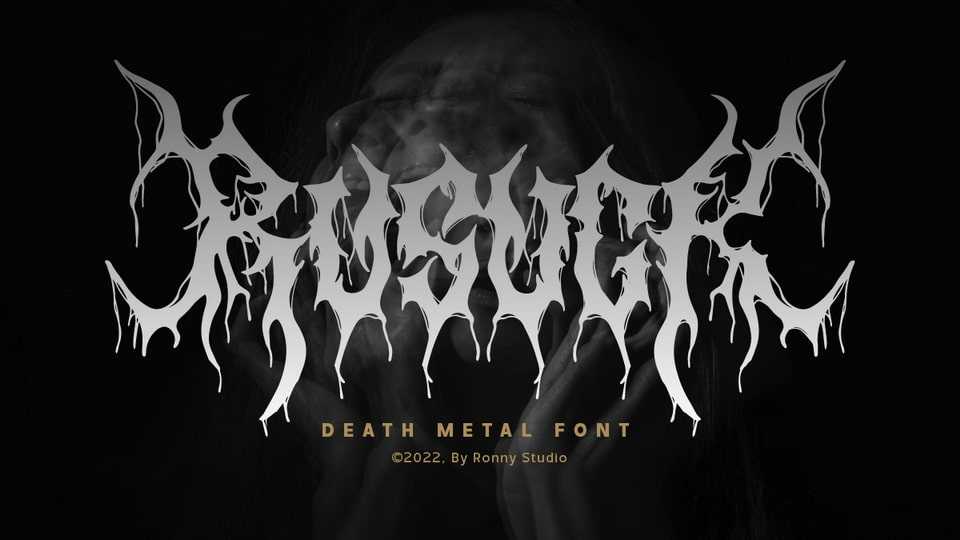
Download Rusuck font, a display typeface inspired by Death Metal. Rusuck is a cool alternative for you to easily create a logo for your Underground band or whatever.